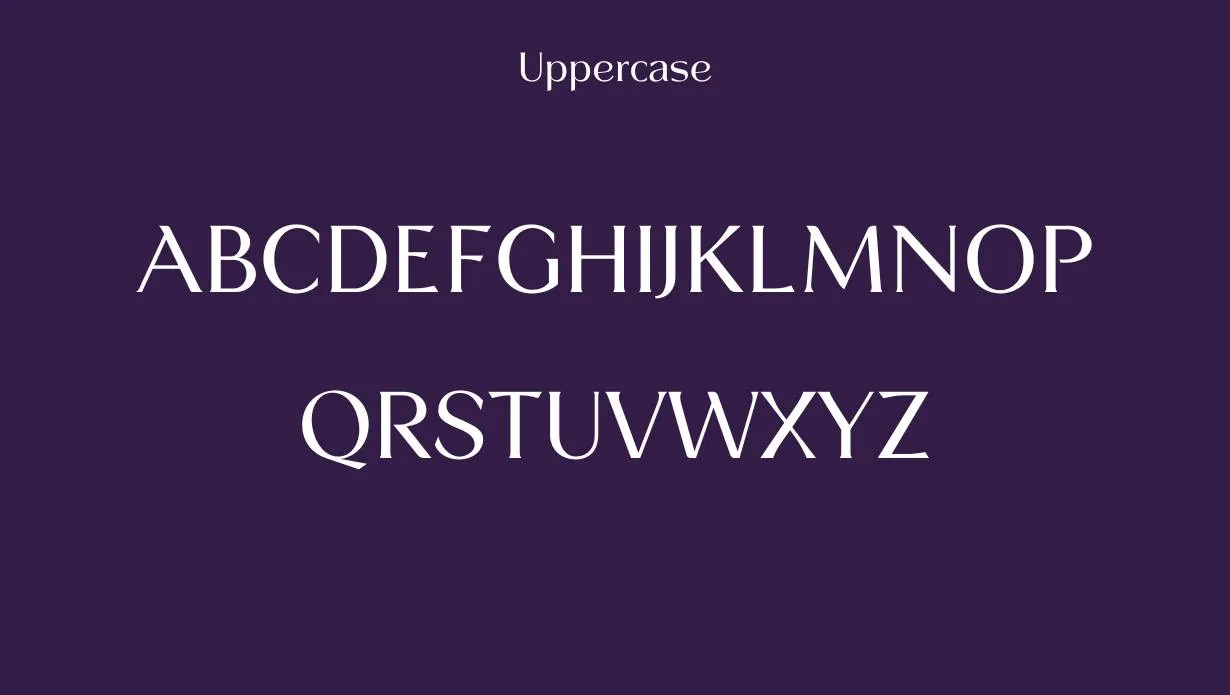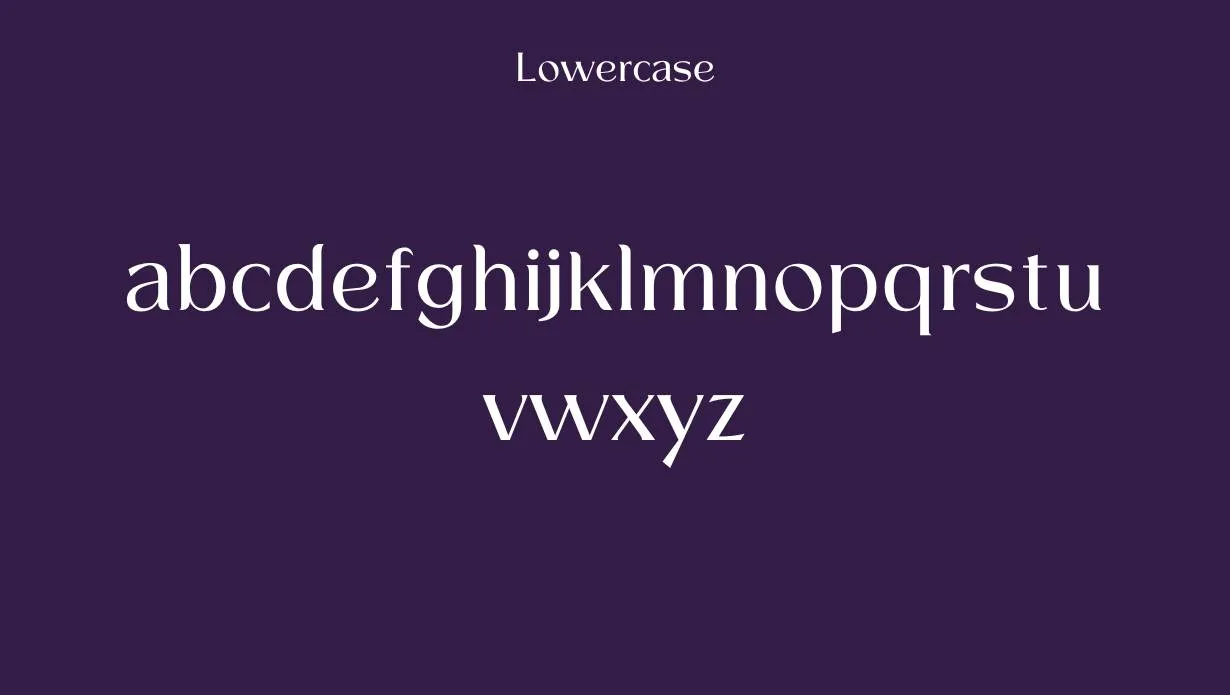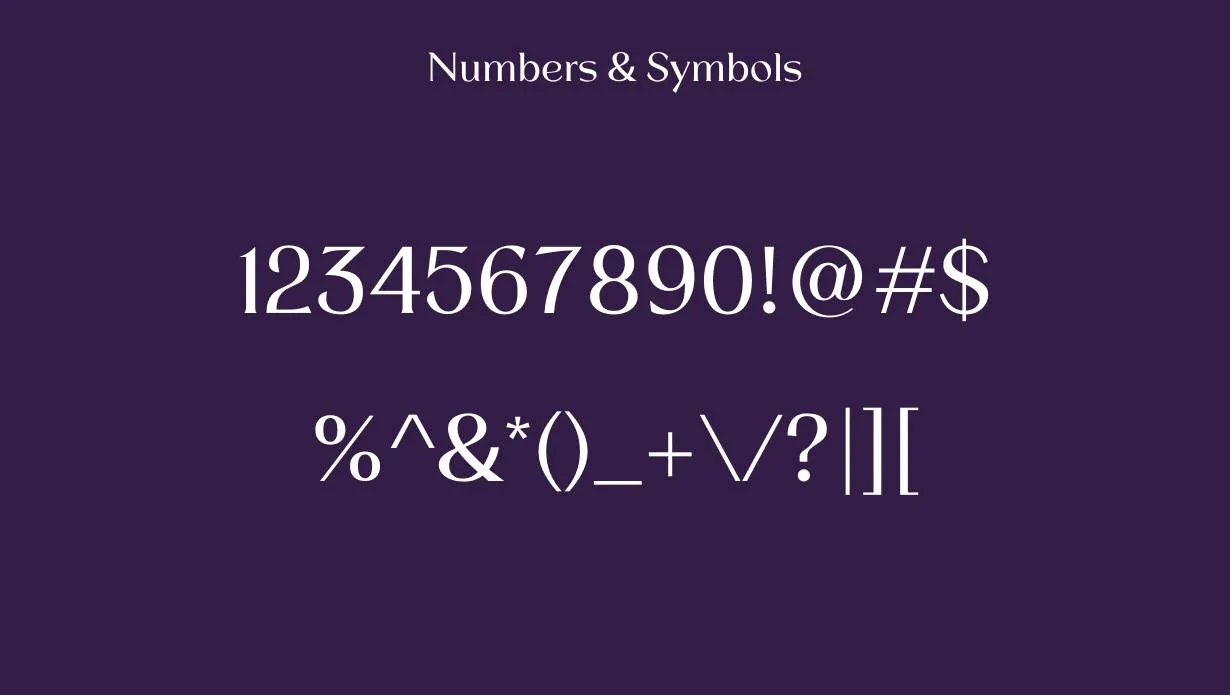
Grenda Font is a modern and sophisticated Serif font created by Yukita Creative that radiates elegance with its subtle design and well-proportioned characters.
This modern typeface is motivated by Arabic and European art, it is accessible in TTF and OTF formats along with solo weight and 397 beautifully defined characters.